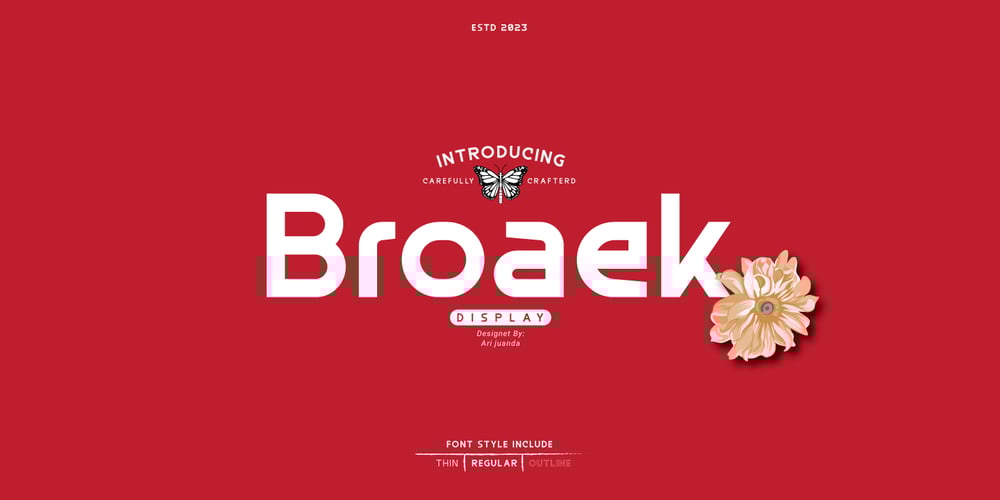
Broaek
Broaek font
Broaek Font Family was designed by Ari Juanda and published by Linecreative. Broaek contains 3 styles and family package options. Broaek is a display typeface with a modern impression. This font consists of 3 types of styles, namely regular, thin, and outline.This font is perfect for use in headlines, posters, branding, titles, and other graphic designs.What you get dear, you will get :1. Broaek- A clean San serif font including Upper & Lowercase characters(Regular,thin,Outline)2. Numbers and Pointing3. Supports Multi linguage (Latin Western Europe)